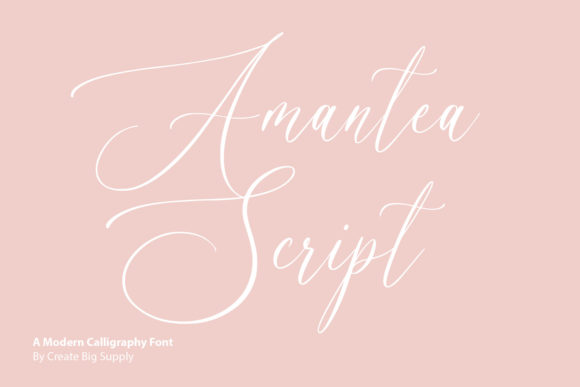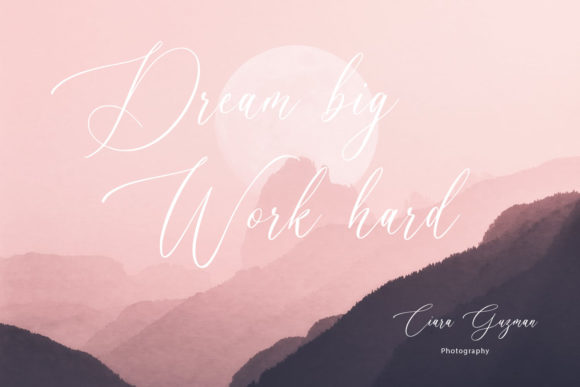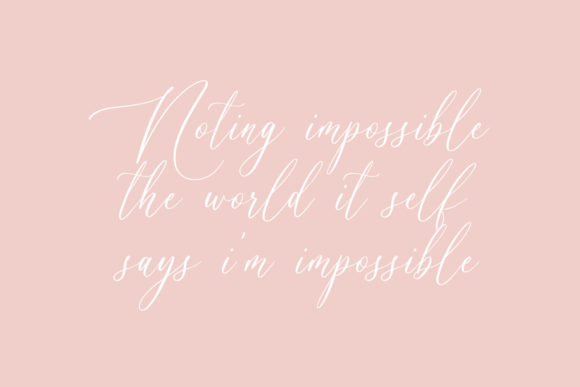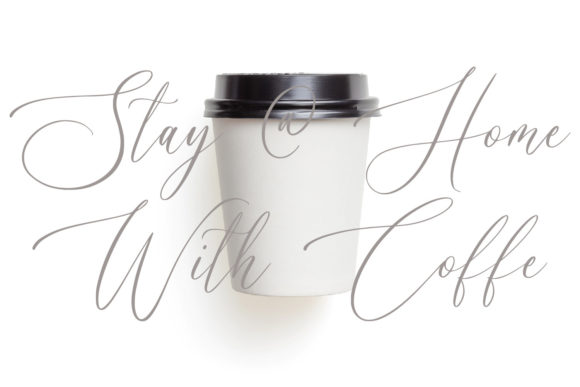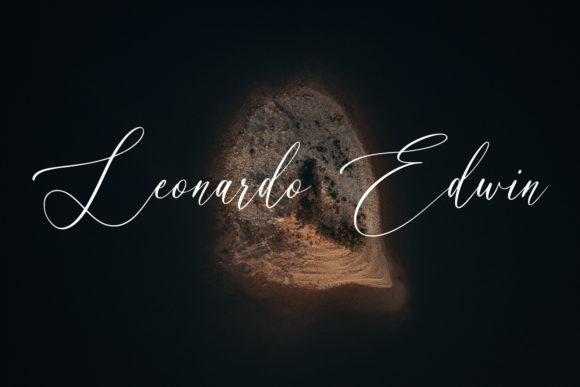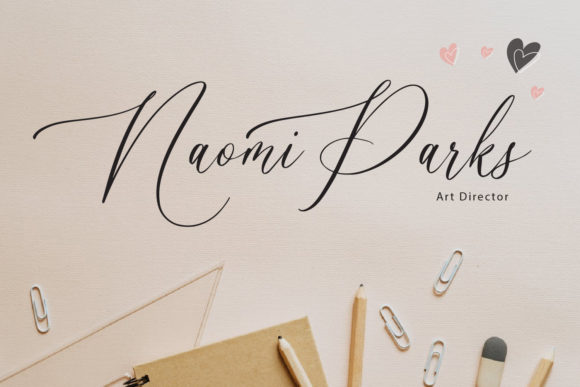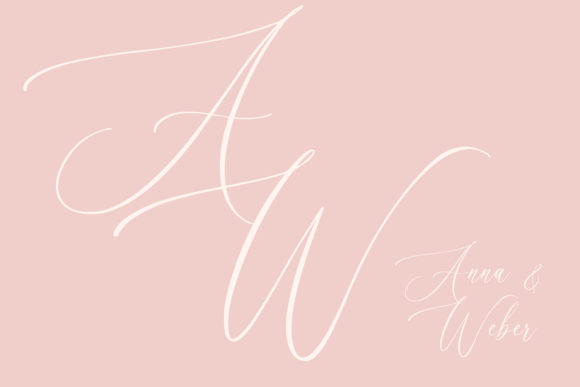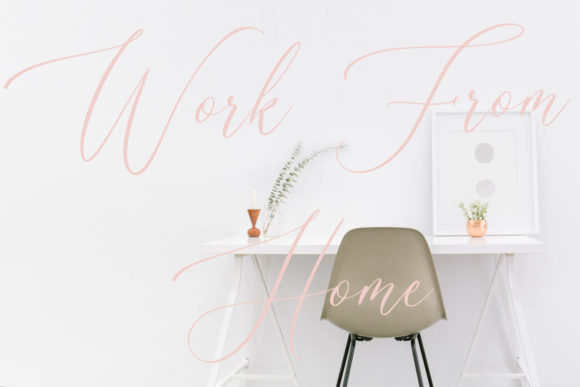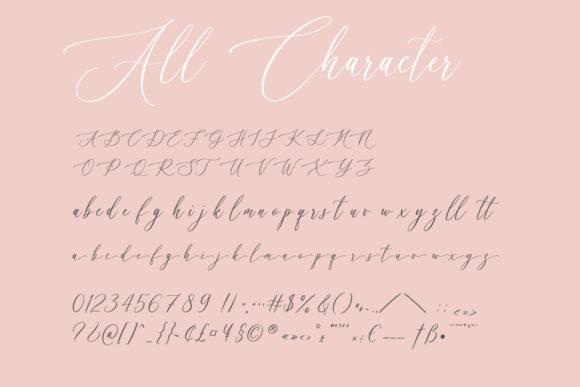
Amantea Script Font
About Amantea Script Font
Amantea Script is a thin lettered and graceful script font. Fall for its ravishing style and use it to create gorgeous designs. This font is PUA encoded which means you can access all glyphs and swashes with ease!